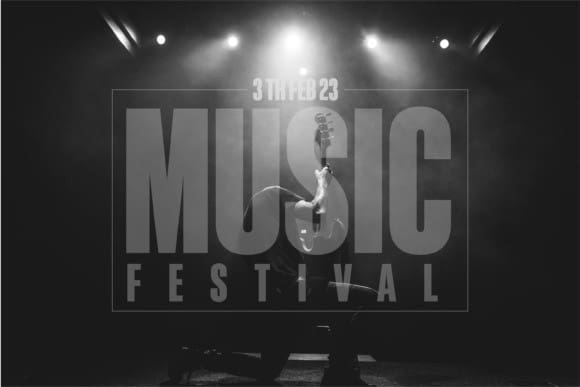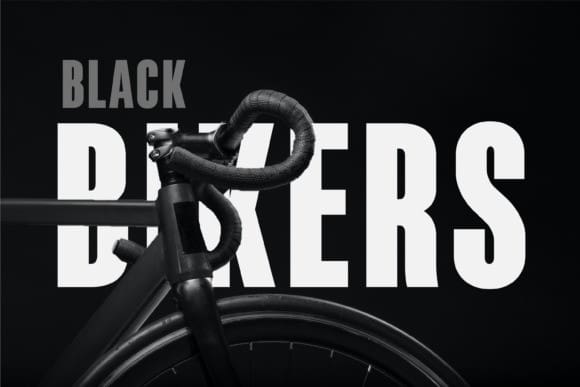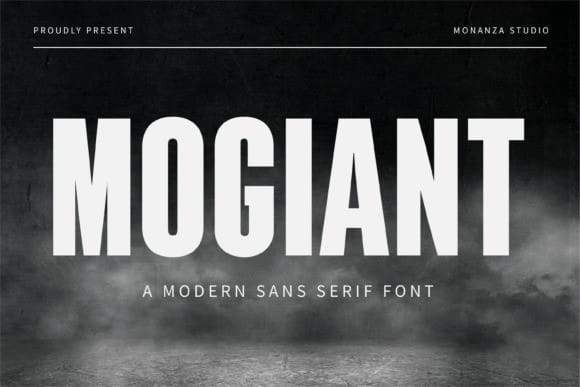
Mogiant Font
Mogiant Font, a contemporary sans serif typeface, was crafted with a distinctive, bold character. It’s a versatile font suitable for a wide range of graphic design applications.